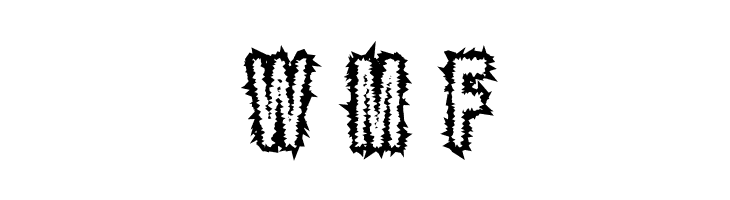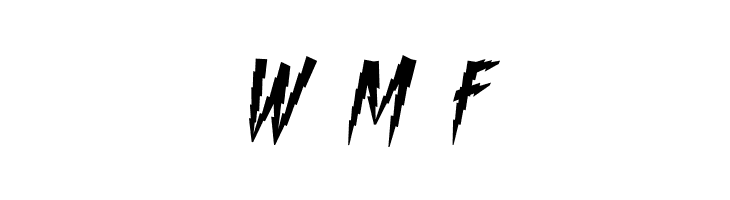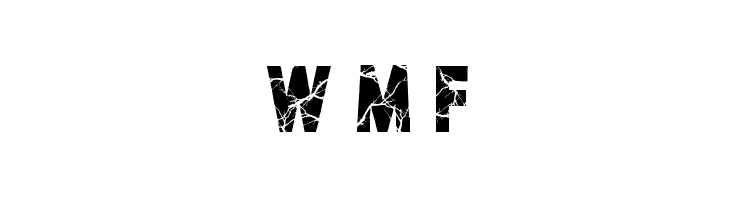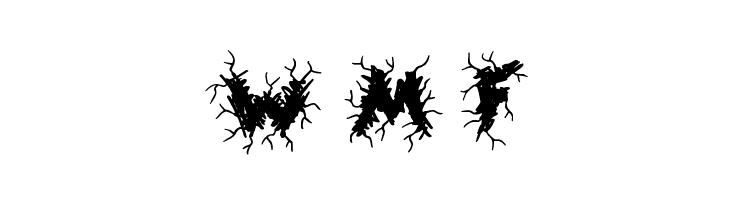
Future Shock Font
A fluid and elegant script font with flowing cursive letterforms.
Shock Font
A bold, jagged font with an energetic, electric appearance.
Shocking Headline Font
A bold, modern sans-serif font with tall, narrow letterforms and uniform stroke width.
Shock Shimmy Font
A bold, distressed font with a vintage, textured appearance.
ShockThick Font
A bold, jagged font with an electric shock appearance.
ShockTherapy BB Font
A bold, jagged font with sharp, electrifying strokes.
oArbust Font
A playful, bold font with a hand-drawn, whimsical style.
ShockTherapy BB Italic Font
A bold, jagged font with an electric, dynamic style.
ShockTherapyBB-Italic Font
A dynamic, jagged font with an electrifying, energetic style.
ShockTherapyBB Font
A bold, jagged font with an energetic and aggressive style.
Shockvetica Font
A bold, textured font with a cracked, distressed appearance.
Shockers Font
A playful, bold handwritten font with thick, rounded strokes.
ShockCorridor-Regular Font
A bold, dynamic font with a vintage poster style.
Shock Mint Fund Font
A bold, geometric font with sharp angles and a strong, structured appearance.
Shock Horror Font
A bold, thorny, and chaotic font ideal for horror themes.
Shocked Up Font
A bold, angular font with a modern, energetic style.
DJB SUGAR SHOCK MAX Bold Font
A playful, handwritten font with bold, rounded strokes and a lively, informal style.
SUGAR SHOCK MAX'D Bold Font
A playful, bold handwritten font with tall, narrow letters and rounded edges.
SUGAR SHOCK Font
A modern, geometric font with bold lines and a futuristic style.
The Shocking Font
An elegant, flowing script font with intricate loops and swirls.